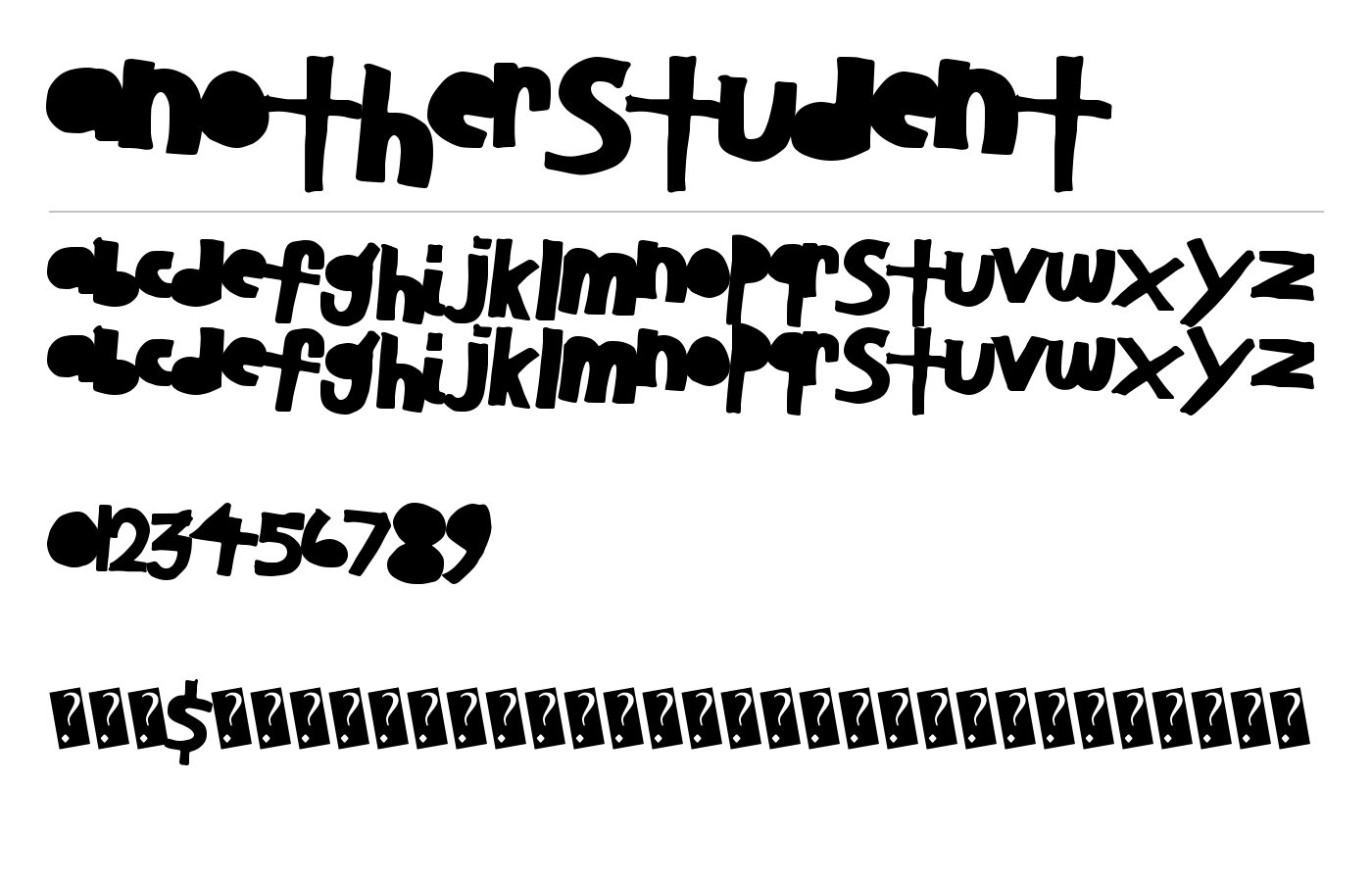
AnotherStudent is a bold, playful handwritten sans serif font with an irregular, casual style that feels lively and informal. Its thick strokes and tall, varied letterforms give it a fun, youthful personality, perfect for creative and approachable designs like posters, kids’ materials, or casual branding. This font’s bold, chunky shapes and quirky character make it ideal for capturing attention in headlines and display uses where a friendly, energetic vibe is desired.
AnotherStudent Font
About AnotherStudent Font